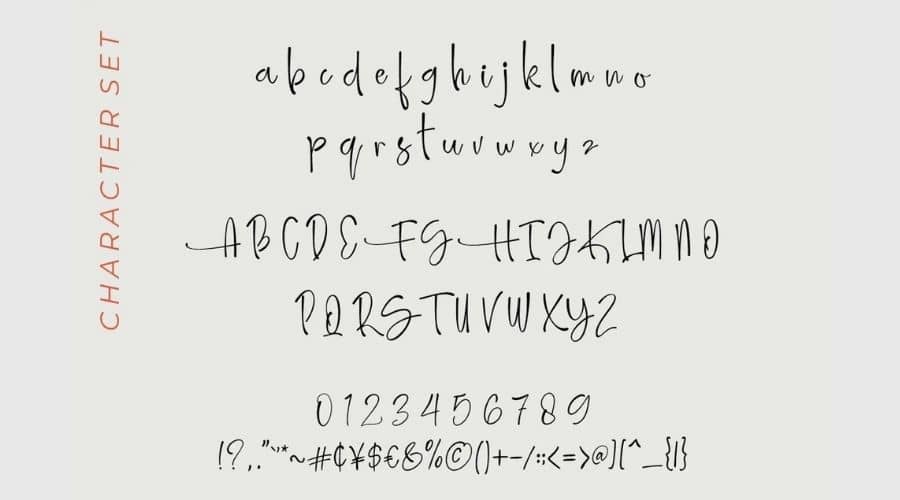
Amellia Ink Font
Amellia Ink Font, a gorgeous, feminine, and natural handwritten script font, is now available. This typeface also comes with several swash options. Because this Font is PUA encoded, you can easily access all of the glyphs and swashes! The Font is invented and published by hansco on 2020-10-18.
This Font is ideal for use in logos, watermarks, branding, wedding invitations, quotes, and other similar projects. Let’s use this to create a lovely project.